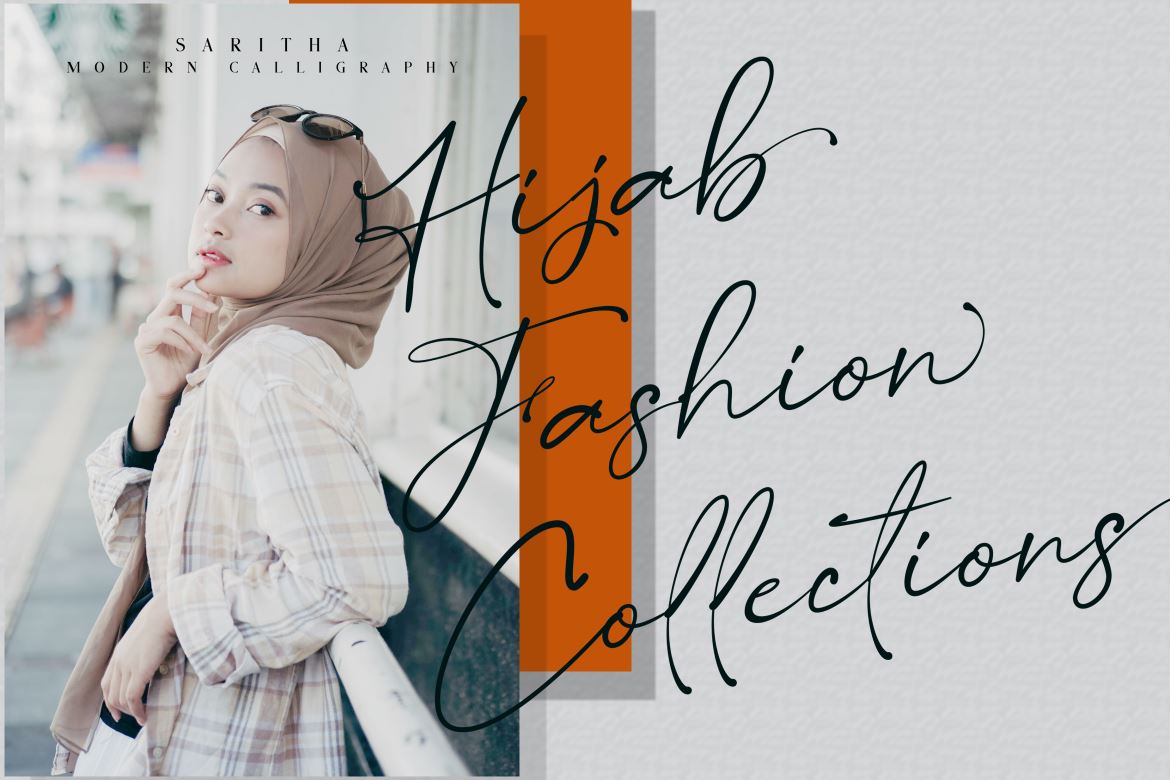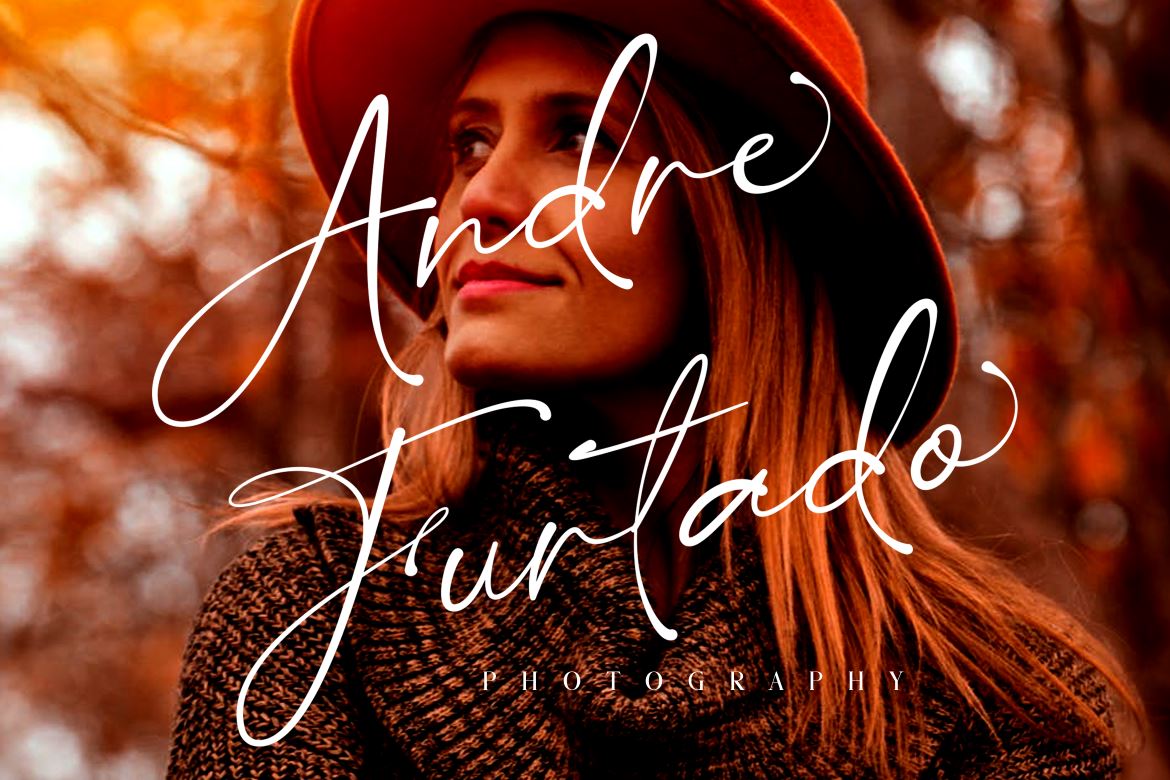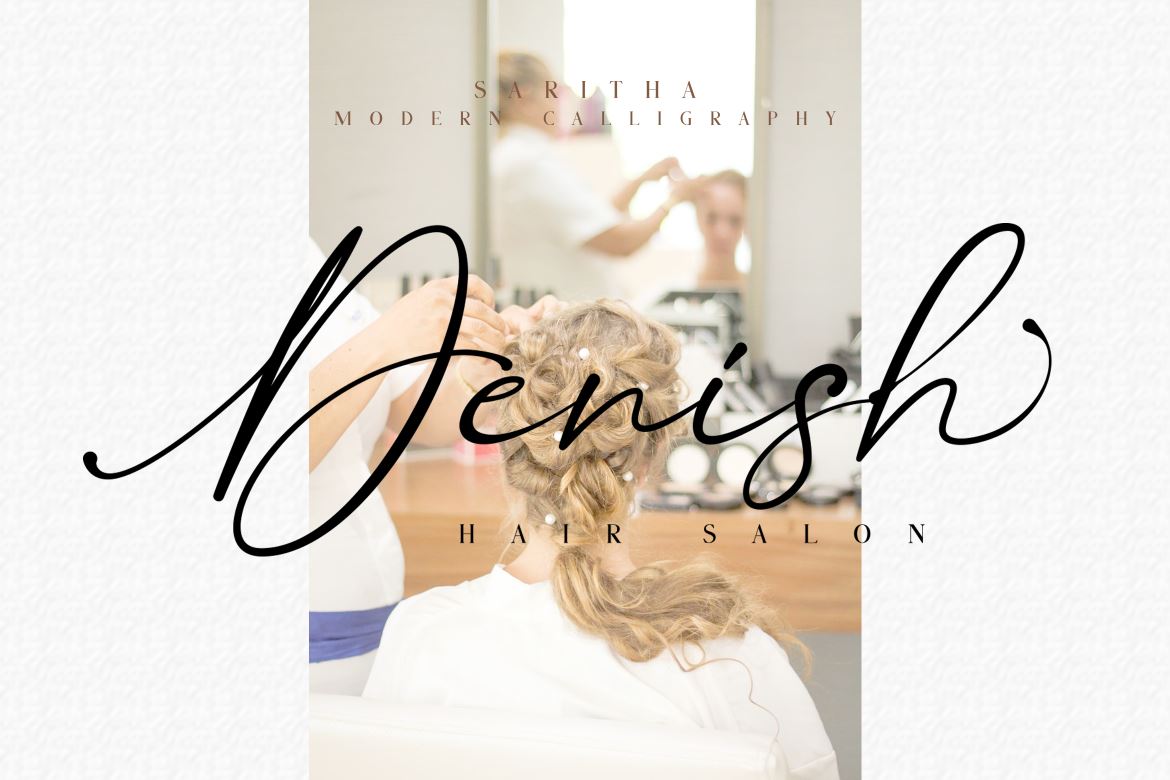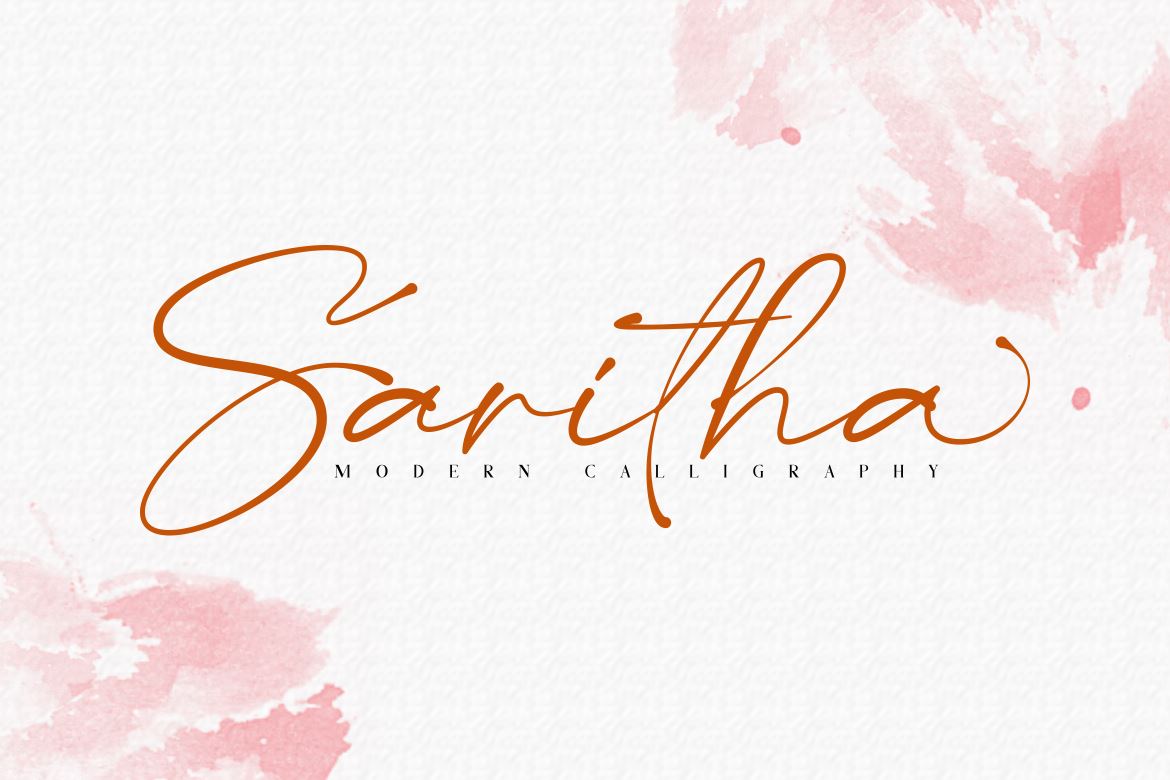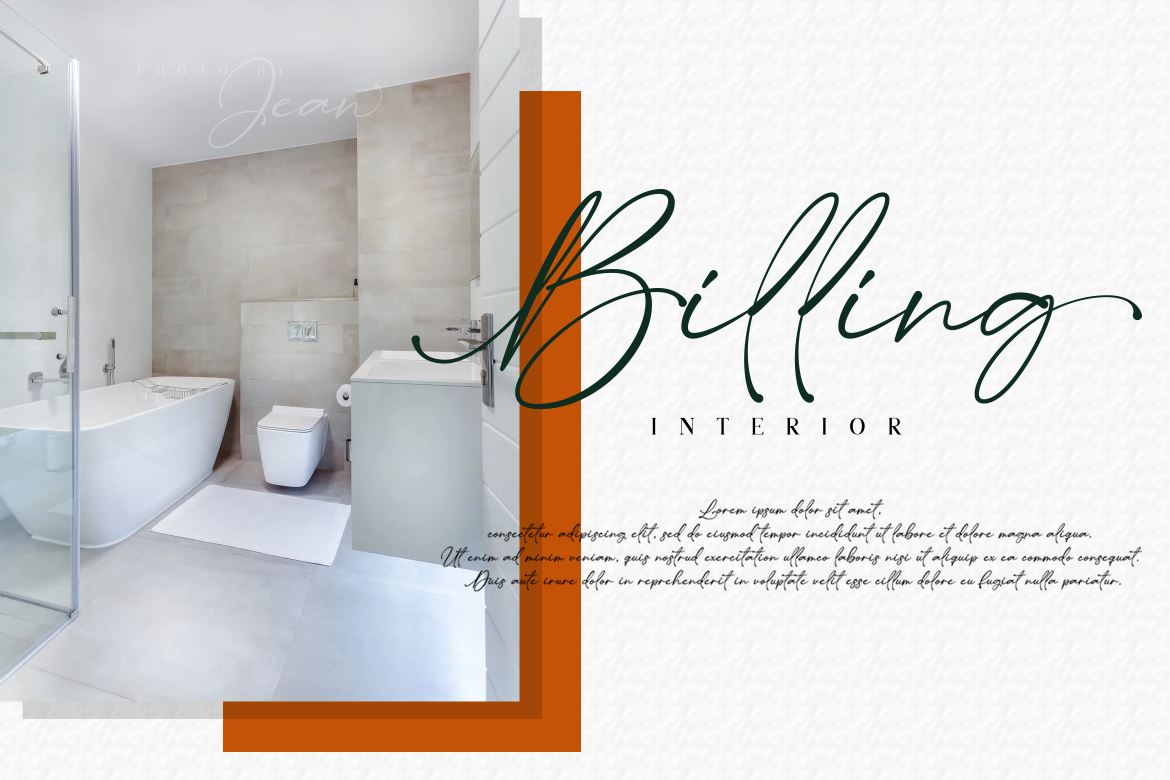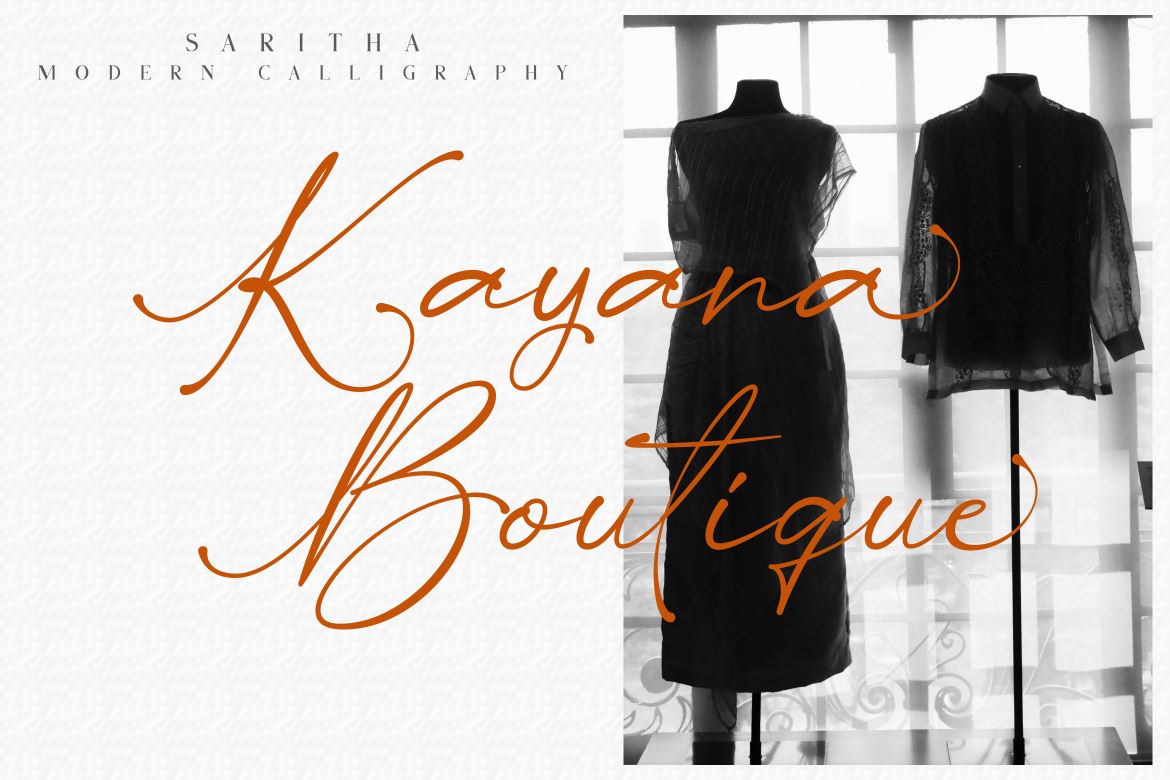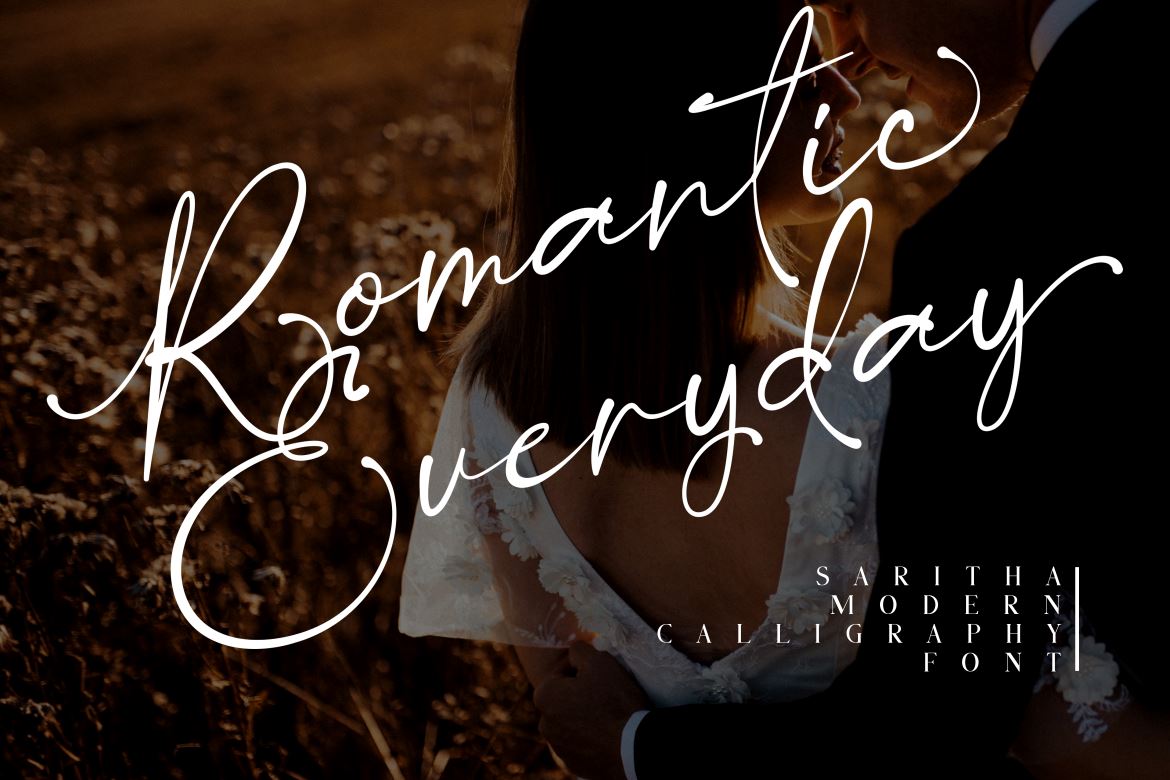
About Saritha // Modern Calligraphy Font
Saritha is made to resemble hand scratches, so it looks like a natural style like your own hand scratches. Saritha offer beautiful typographic harmony for a variety of design projects, including watermark, logos,branding, wedding designs, social media posts, advertisements, product designs, magazines and others. What’s included? You will get : -Saritha TTF -Saritha OTF -Ligature -swashes -Multilingual support We can’t wait to hear your comments and we are very grateful for your visit to our store. Happy designing. Thank You,